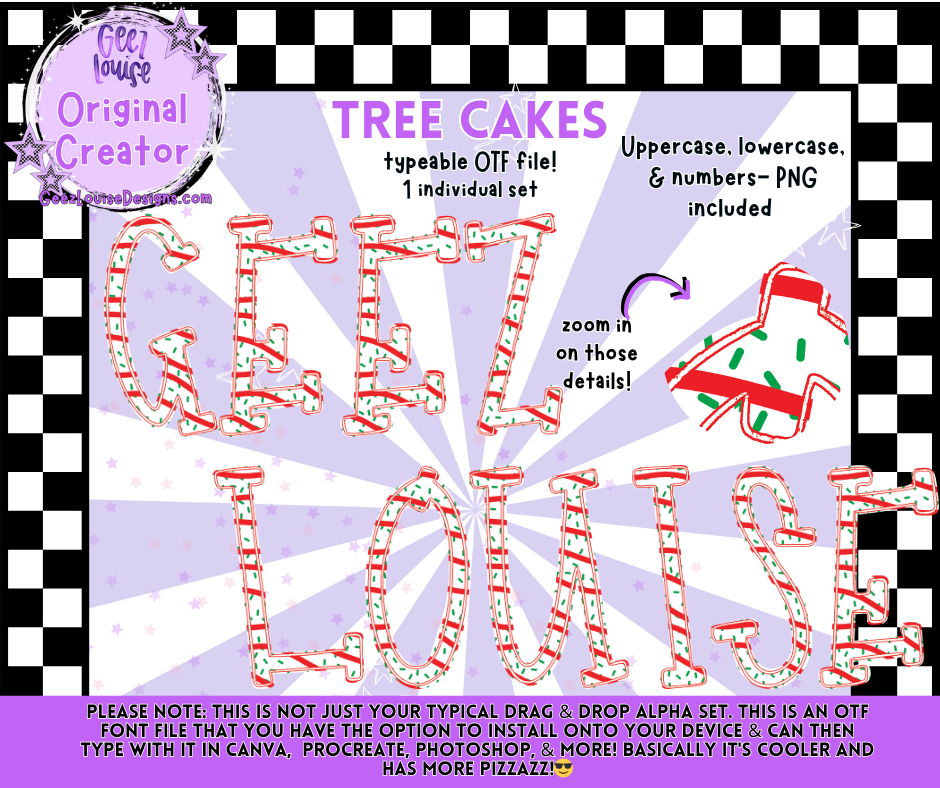
Celebrate the season with some sweet southern nostalgia using the Tree Cakes Alpha!
Inspired by those iconic holiday snack cakes we all know and love, this festive alpha features red drizzle, creamy frosting details, and cheerful Christmas vibes baked right in. Perfect for apparel, digital designs, and sublimation projects that need a fun (and delicious) holiday touch!
This isn’t your average alpha — it’s a fully typeable OTF font that lets you instantly type in frosted Tree Cake perfection.